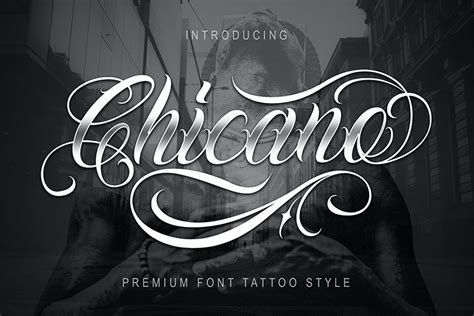
Fortunately, we have many unique tattoo font styles for men and women, such as calligraphy, cursive, and traditional styles. If you want to create professional printout, you should consider a commercial font. Okay, so now that you know where you can find the best tattoo fonts when you have a bit of a budget, let's take a look at some.
Check it for free with typograph. It is quite simple and easy to use. 30+ best free tattoo fonts to download. This font available for windows 7 and mac os in truetype (.ttf) and opentype (.otf) format. Gibrael is a tattoo script font with an artistic handwritten design.
Free fonts often have not all characters and signs, and have no kerning pairs (avenue ↔ a venue, tea ↔ t ea). Hero beam tattoo is a decorative vintage typeface, remastered for a modern performance. Crosses are a staple of tattoo design, and this dingbat font by spanish designer woodcutter brings together a range of brilliant designs that you can.
These tattoo fonts resemble diverse lettering styles and hence, you could select the one that matches your taste. The commercial version is revised, with additional glyphs, and can be. Fontsc.com is formed in the spirit of for fonts, where creative ideas meet beautiful designs as we all know great designs last forever!. Sign in to add and modify your software..
It is made to decorate your logos, posters, merchandise, headlines and, surely, sketches! Looking for tattoo lettering fonts? Check it for free with typograph. Tribal animals tattoo designs font viewed 356 times and downloaded 9 times. This is a template that is provided with an array of great technical features.
The design is free for personal use only. If you want to create professional printout, you should consider a commercial font. We start our list with the stylish feminine cursive tattoo fonts. This font is perfect for designing greeting cards, logos, and even business cards. Hero beam tattoo is a decorative vintage typeface, remastered for a modern performance.